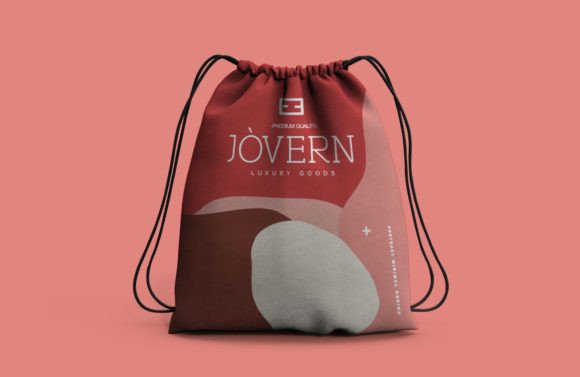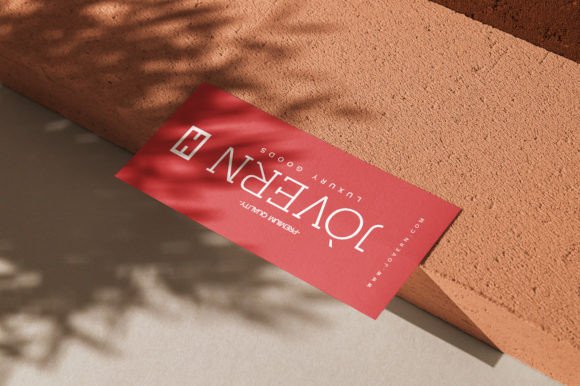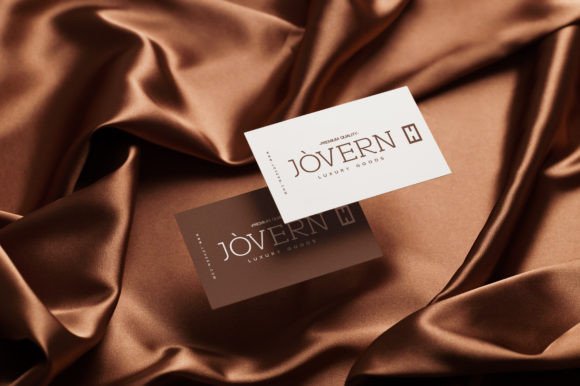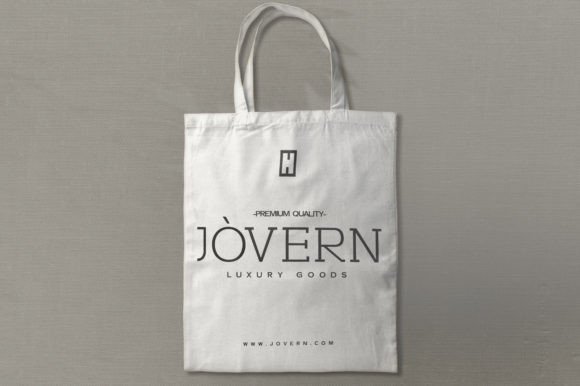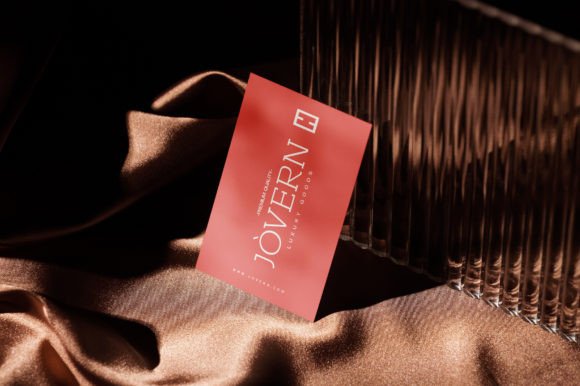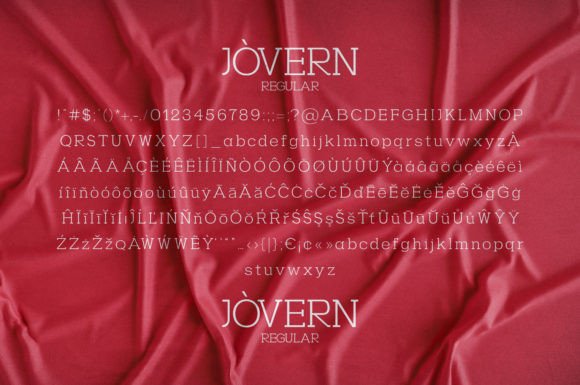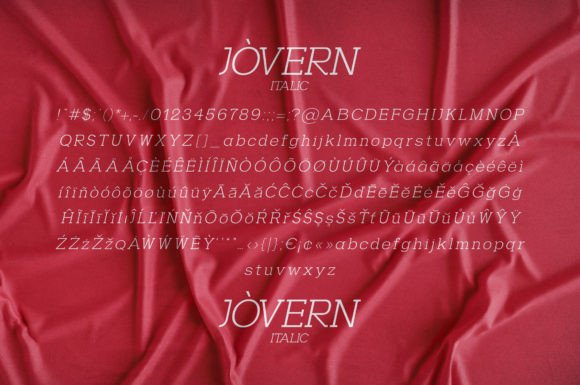
Jovern Font
JOVERN FONT SPECIMEN
Jovern is an elegant, chic and stylish slab serif typeface. It adapts wonderfully in contexts such as designing labels for perfumes, cosmetics, magazine covers, posters, manifests, flyers, social posts, and fashion. Use it in your creations so you can notice how fastly it becomes one of your favorite fonts.